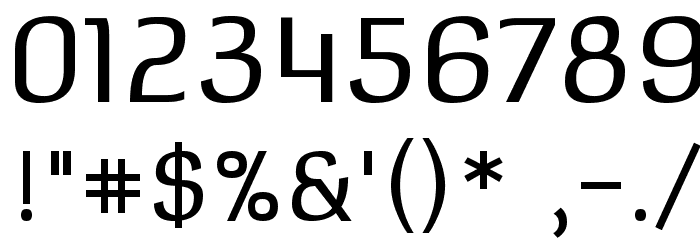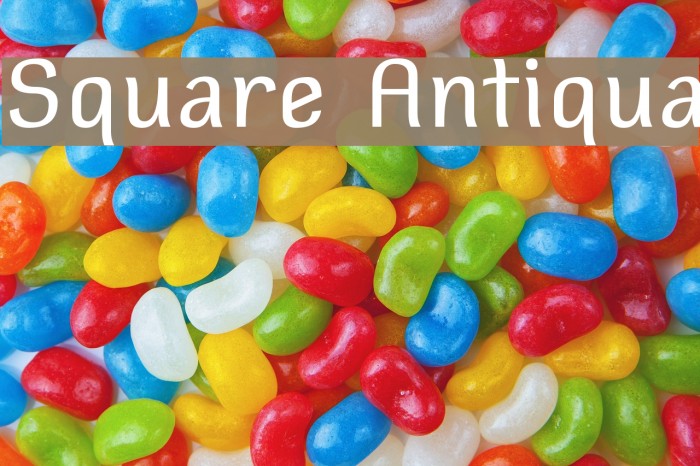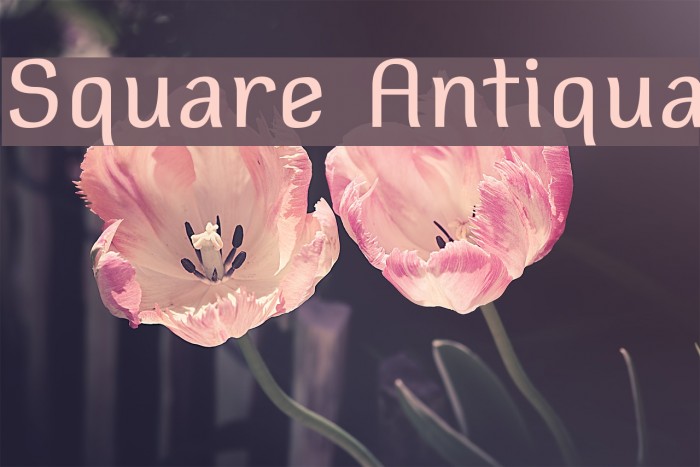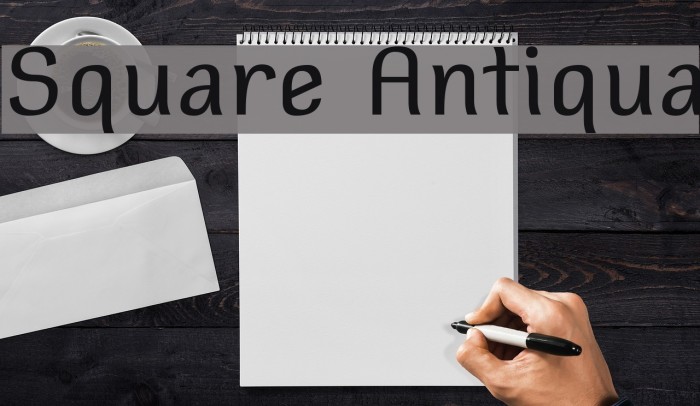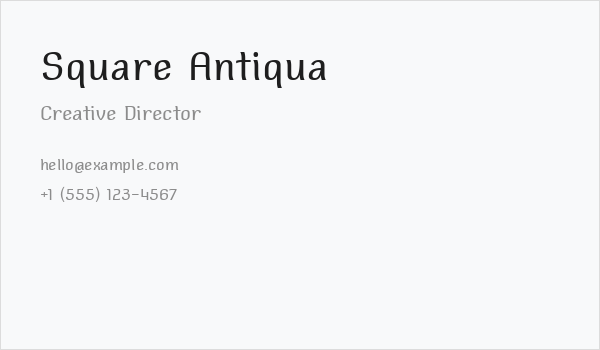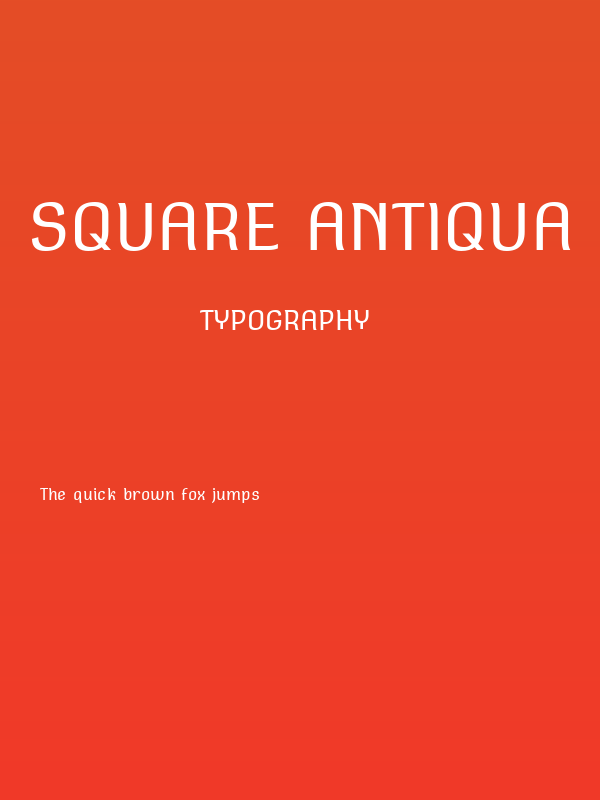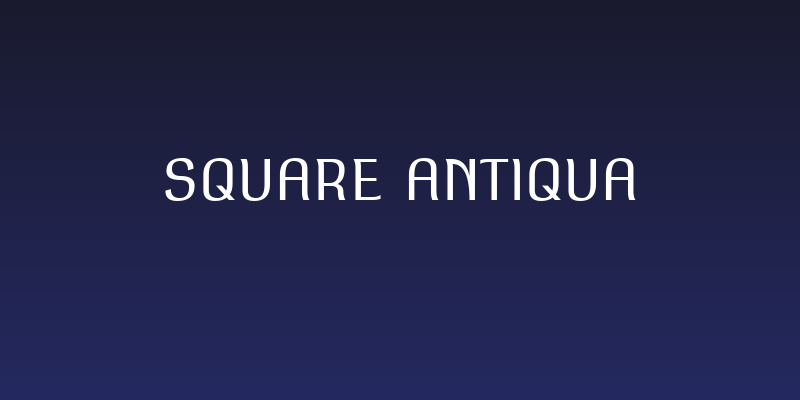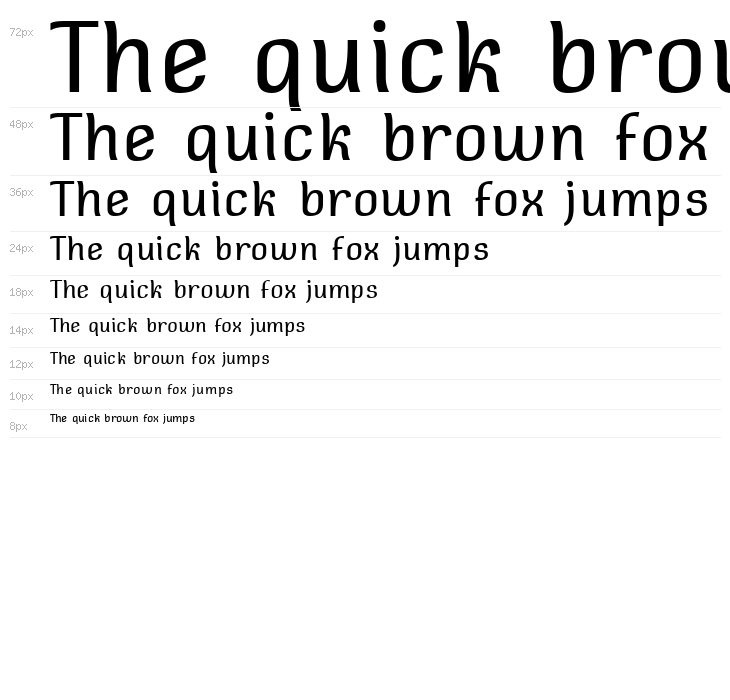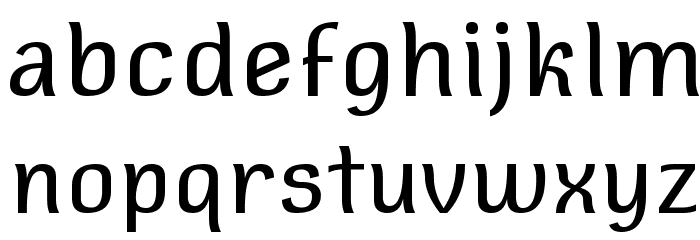
Square Antiqua Font
Square Antiqua Description
This font features a modern and clean design with a geometric structure. The characters are well-proportioned, with a consistent stroke width that gives it a uniform appearance. The uppercase letters are bold and assertive, while the lowercase letters maintain a friendly and approachable look. The numerals are clear and easy to read, making them suitable for various applications. The special characters are distinct and well-integrated into the overall design, ensuring versatility in usage. This font's style is both contemporary and timeless, making it adaptable for a wide range of design projects.